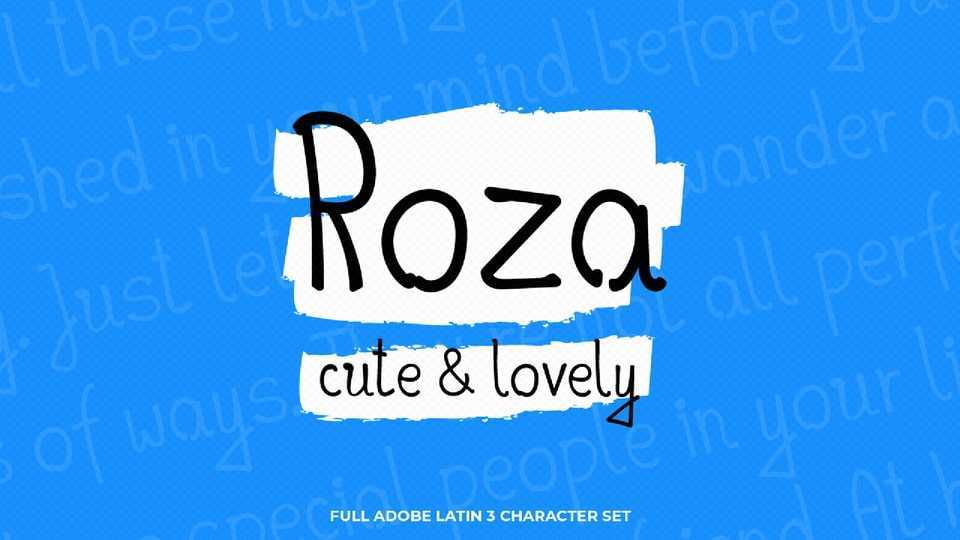
Download Roza font, a little cute handwritten typeface. With its organic look Roza font helps easy and quick to create designs with a full handmade look.